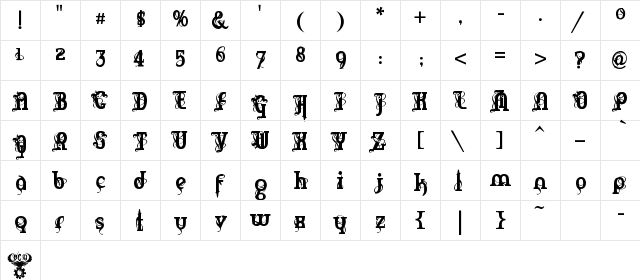
Marquis De Sade Regular
| Designer | BoltCutterDesign |
Design Context for Marquis De Sade Typeface
Marquis De Sade is a composed and adaptable typeface that performs quietly and consistently across a wide range of design contexts.